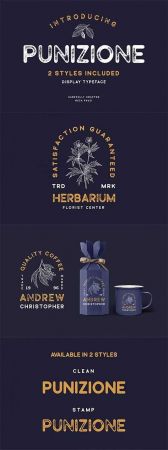
Punizione is a fresh bold vintage font crafted very carefully, available in two styles : Clean and Stamp version. Punizione is perfect use for a logo for branding, typography design, badge design, product packaging, invitation, quotes, t-shirt design, label poster, special events and anything that need vintage taste.
- Ton of glyphs ( Only available as All caps font, Numerals & Punctuations)
- Multilingual Language